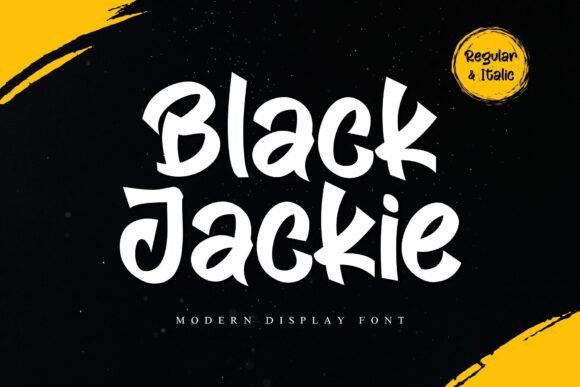
Unleash Your Creativity with Black Jackie Font
Have you ever been in the middle of a design project, and suddenly, it all comes to a grinding halt because you just can’t seem to find the right font? I recall a particularly frustrating experience while working on a branding project for a trendy boutique hotel. My client wanted a font that was both modern and edgy, but everything I tried seemed to fall flat. That’s when I stumbled upon Black Jackie, a contemporary display font that completely transformed my design.
The Birth of Black Jackie
While we can’t know for certain, it’s said that Black Jackie was inspired by the classic typography of the past, with a bold and daring twist. The designer, known for their love of avant-garde art, aimed to create a font that would be both elegant and rebellious. The result is a font that’s equal parts sophisticated and edgy, making it perfect for designers looking to push the boundaries of their creativity.
My Honest Review of Black Jackie
So, what makes Black Jackie so special? Here are a few things I love about this font:
- ✨ Unique Characteristics: Black Jackie has a distinct personality that sets it apart from other fonts. Its bold lines and fascinating appeal make it perfect for headlines, titles, and short texts.
- ✅ Versatility: This font can be used for a wide range of design projects, from branding and advertising to packaging and digital media.
- 💥 Impactful: Black Jackie demands attention, making it perfect for designs that need to stand out.
Of course, no font is perfect, and Black Jackie has a few quirks:
- 🤔 Limited Legibility: While Black Jackie is stunning, it’s not the most legible font for long texts. It’s best used for short, impactful messages.
- ⚠️ Overuse: Be careful not to overuse Black Jackie, as it can quickly become overwhelming.
- Explore stylistic alternates and OpenType features to add more depth to your design.
| Font Name | Black Jackie Font |
| Author | Letterafa Studio |
| What makes Black Jackie unique? | Black Jackie has a distinct personality with bold lines and fascinating appeal, making it perfect for headlines, titles, and short texts. |
| Is Black Jackie suitable for body text? | While Black Jackie is stunning, it’s not the most legible font for long texts. It’s best used for short, impactful messages. |